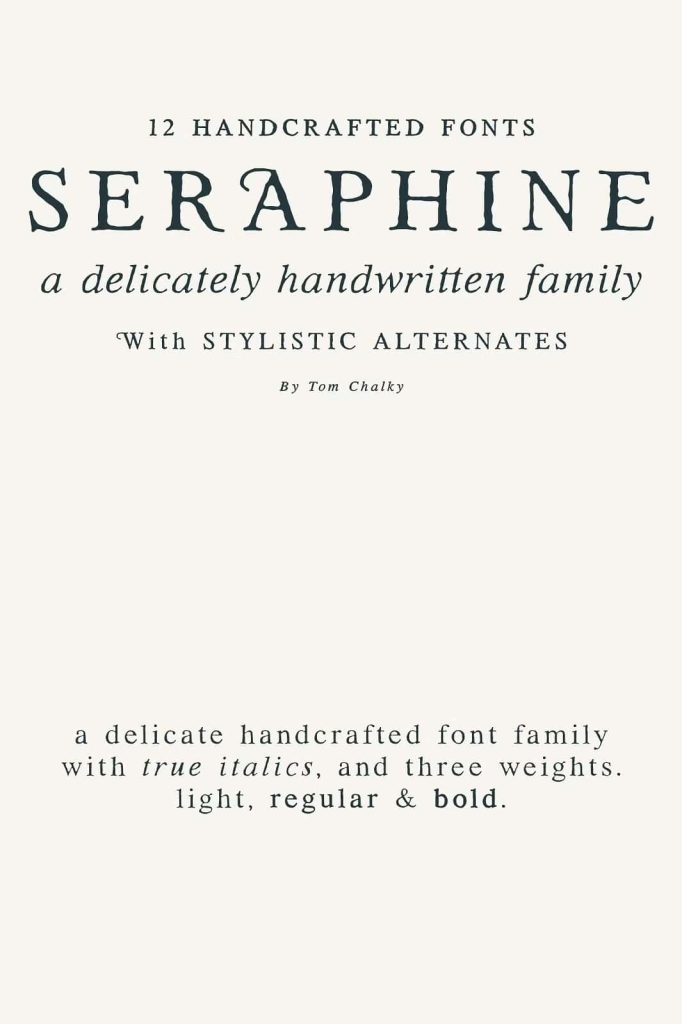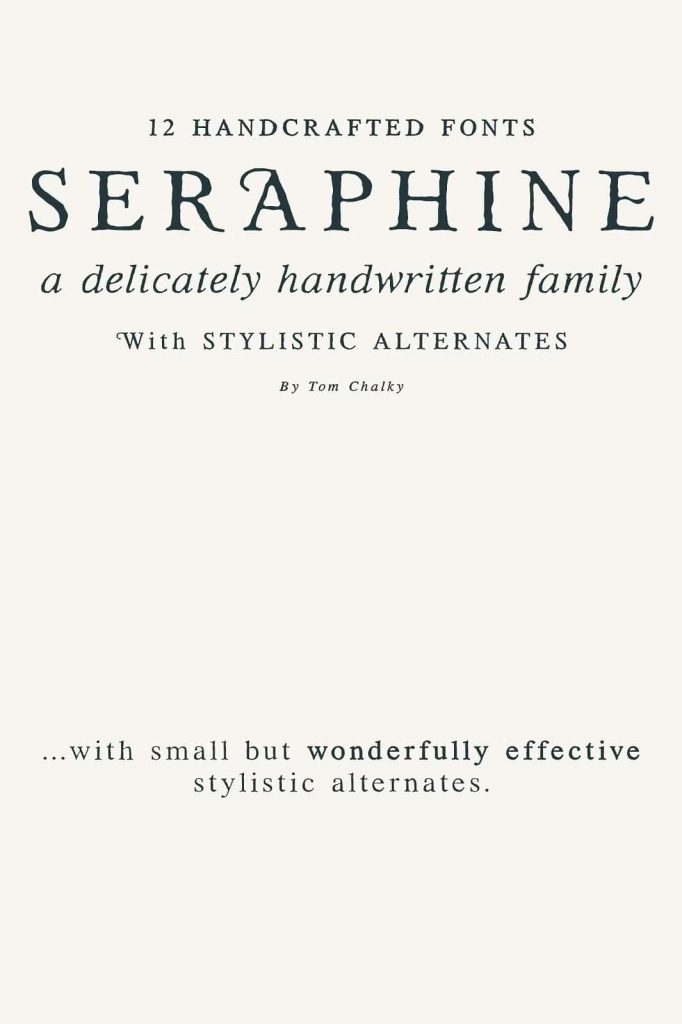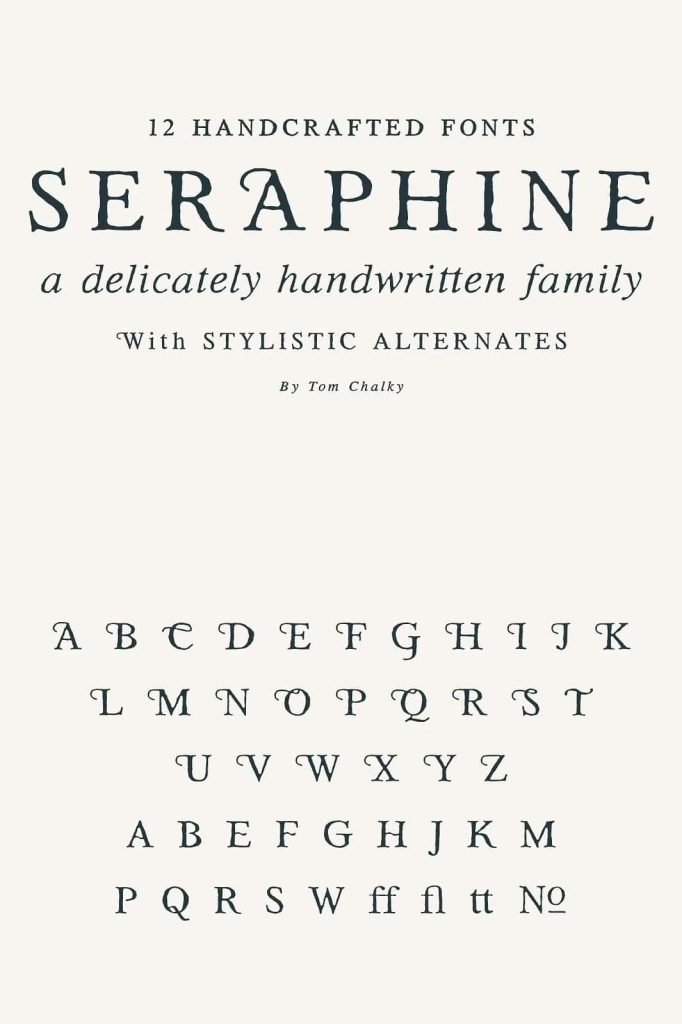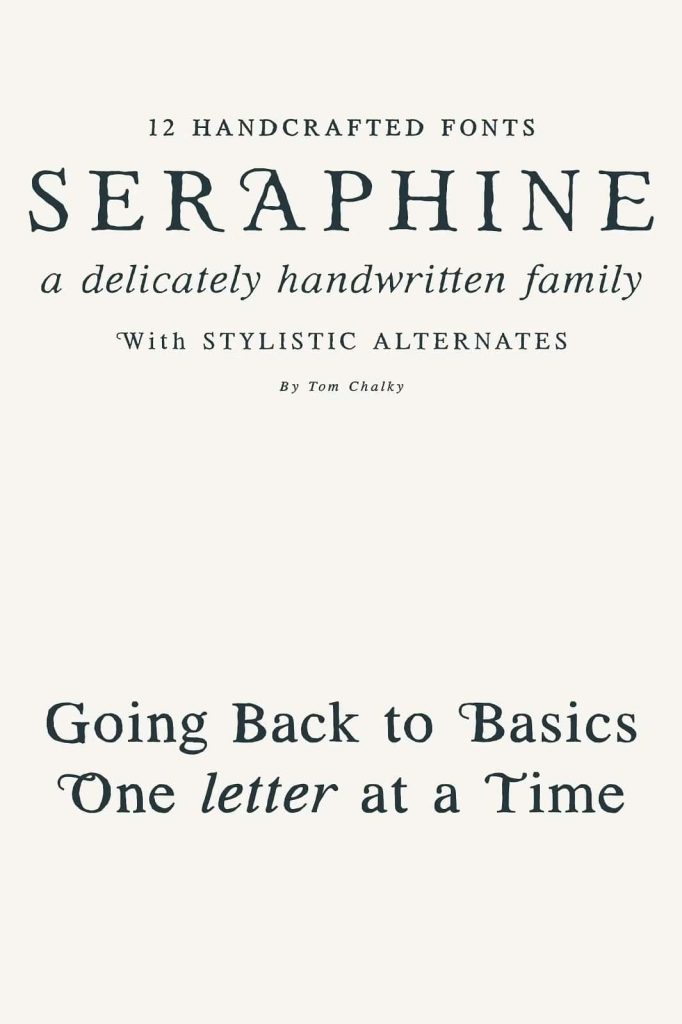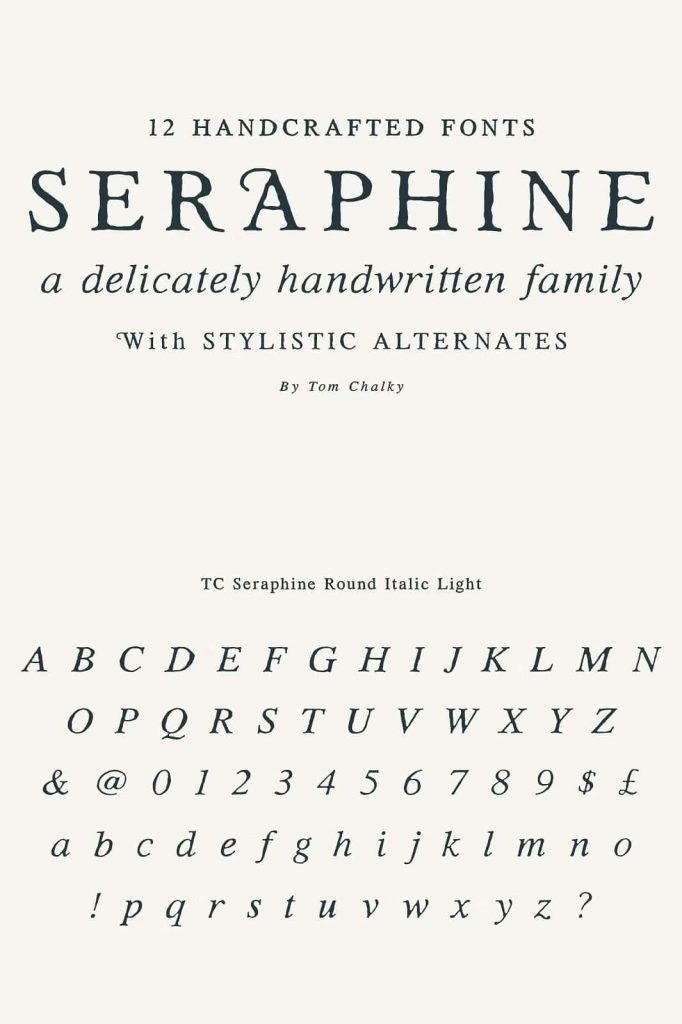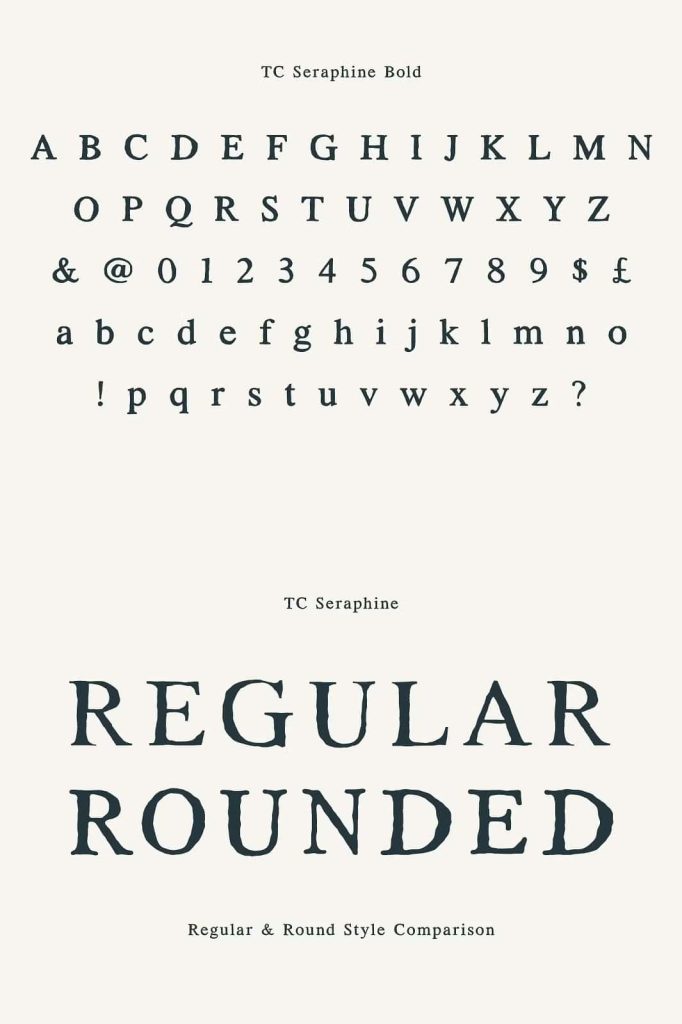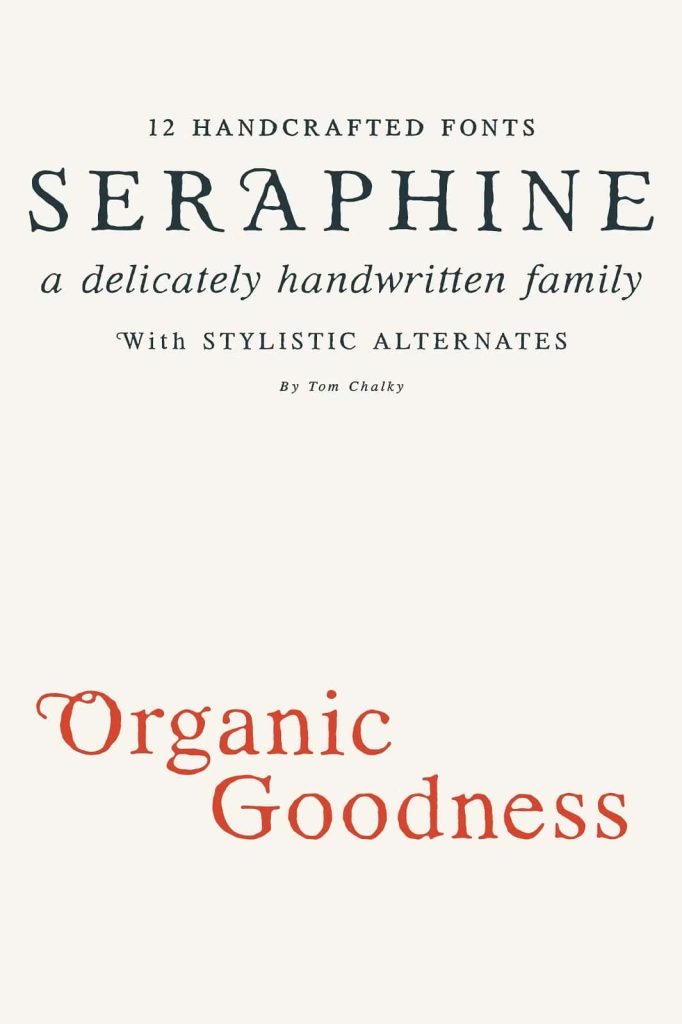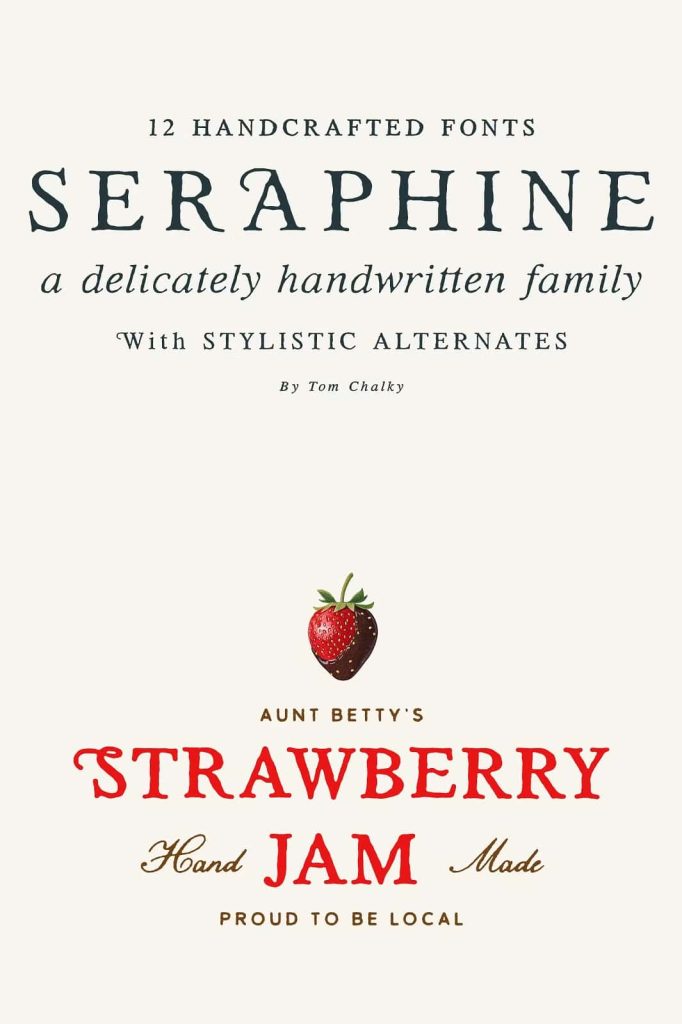
Seraphine Serif Font Family with Delicate Handcrafted Elegance
Seraphine is a refined serif font family designed with a delicate, handcrafted touch. This thoughtfully crafted type system brings warmth, elegance, and versatility into one cohesive collection. With 12 fonts in total, Seraphine gives designers the freedom to build expressive typography while maintaining consistency and balance across every project.
This serif font family combines classic structure with subtle human details. The result feels graceful, approachable, and highly professional. Whether you design for branding, editorial layouts, packaging, or digital platforms, Seraphine empowers you to create polished compositions that communicate clarity and sophistication.
A Complete Serif Font Family with 12 Versatile Fonts
Seraphine includes 12 carefully designed fonts that work seamlessly together. The family comes in both Rounded and Regular styles, and each style includes Light, Regular, and Bold weights, along with true italics. This comprehensive system allows you to create strong typographic hierarchy without switching between unrelated typefaces.
By offering multiple weights and styles, Seraphine gives you complete creative control. You can design subtle, airy layouts with Light weights, establish confident structure with Regular weights, or create bold emphasis using the Bold styles. The consistent design language across the family ensures your work always looks cohesive and intentional.
Regular and Rounded Styles for Flexible Expression
Seraphine stands out by offering both Regular and Rounded versions within the same serif font family. The Regular style delivers classic serif precision with elegant contrast and clean detailing. It works beautifully in professional branding, editorial headlines, and refined print layouts.
The Rounded style softens the edges and introduces a gentle, friendly tone. These rounded details create warmth and approachability while preserving the structure of a serif typeface. Designers can use the Rounded version for lifestyle branding, creative projects, and modern packaging that requires a softer voice.
By combining Regular and Rounded styles, you can build dynamic visual systems that balance authority and friendliness within a single brand identity.
Light, Regular, and Bold Weights for Strong Hierarchy
Each style in the Seraphine serif font family includes Light, Regular, and Bold weights. These weight variations allow you to establish clear hierarchy and guide the viewer’s attention effectively. Use Light for elegant captions or minimalist layouts. Apply Regular for balanced body text and structured headings. Choose Bold to create powerful statements and eye-catching titles.
This range of weights ensures that Seraphine adapts to diverse design needs. From delicate wedding invitations to bold magazine covers, the font family maintains visual harmony while delivering impact.
True Italics for Natural Flow and Emphasis
Seraphine includes true italics rather than simple slanted versions of the upright fonts. These true italics feature carefully redrawn letterforms that introduce natural movement and refined elegance. They add contrast and rhythm to your typography while maintaining readability.
Use italics to highlight quotes, emphasize key phrases, or add flair to editorial layouts. The handcrafted touch in the italic styles enhances the overall personality of the typeface and strengthens its expressive potential.
Handcrafted Details with Modern Precision
Seraphine balances delicate handcrafted nuances with modern typographic precision. Subtle curves, refined serifs, and carefully adjusted spacing create a typeface that feels personal yet highly professional. The handcrafted influence adds charm and authenticity without sacrificing clarity.
This combination makes Seraphine suitable for designers who want to infuse their work with warmth while maintaining structured elegance. The font performs beautifully in both print and digital environments, ensuring consistent results across different media.
Perfect for Branding, Editorial, and Packaging Design
Seraphine serif font family excels in branding and identity design. Its elegant forms and versatile styles allow you to create sophisticated logos, luxury brand systems, and memorable wordmarks. The balance between classic serif tradition and modern refinement communicates trust and quality.
In editorial design, Seraphine enhances magazines, books, and feature spreads with clear hierarchy and graceful rhythm. Designers can mix weights and italics to build engaging layouts that feel structured and refined.
For packaging and product design, Seraphine adds a premium touch that elevates labels, boxes, and promotional materials. The Rounded style softens the tone for lifestyle brands, while the Regular style reinforces authority for high-end products.
Create Elegant and Cohesive Typography
Choose Seraphine serif font family when you want to combine handcrafted charm with professional precision. Let it elevate your branding, editorial layouts, and creative projects with timeless elegance and modern versatility.